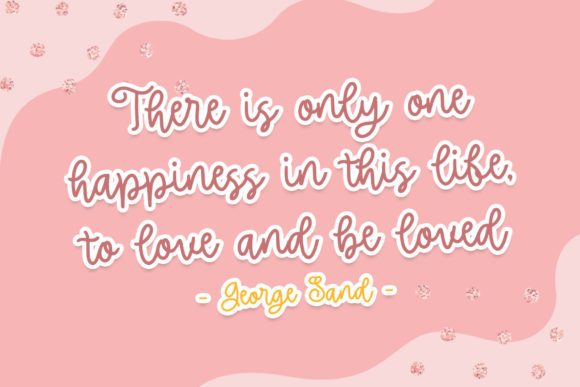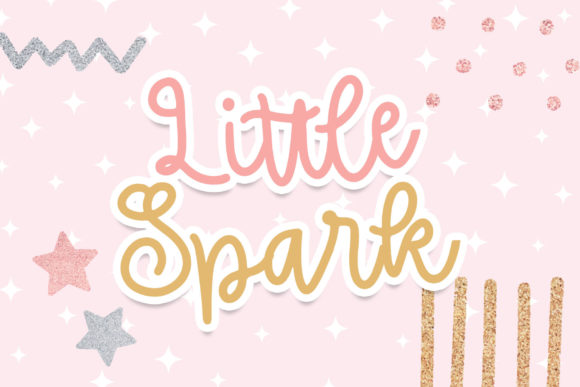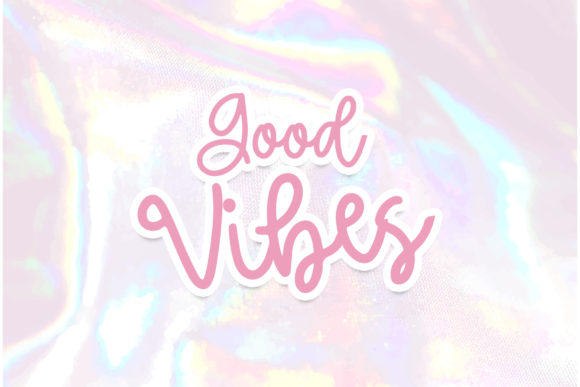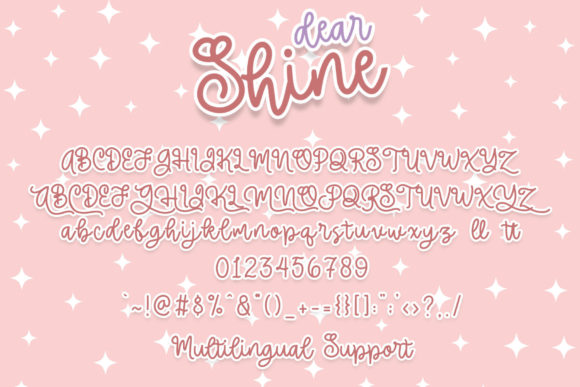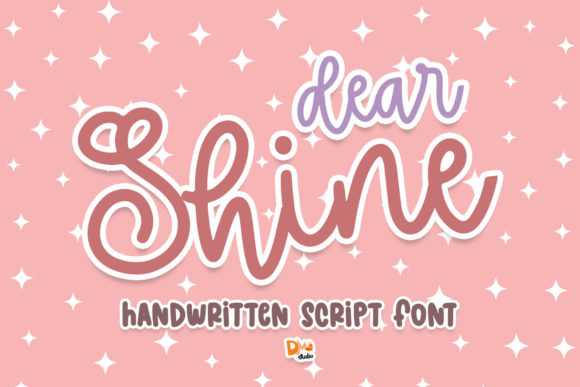
Introducing Dear Shine Font: A Lovely Handwritten Script Font to Spread Happiness
Are you a designer, crafter, or DIY enthusiast looking for a beautiful and elegant font to add a personal touch to your projects? Look no further than Dear Shine Font, a lovely handwritten script font designed to bring joy and creativity to your crafts. In this article, we’ll explore the features and benefits of Dear Shine Font, and how it can help you create stunning and unique designs.
What is Dear Shine Font?
Dear Shine Font is a beautiful handwritten script font that exudes warmth, elegance, and sophistication. Its flowing curves and delicate strokes make it perfect for creating lovely crafts, such as handmade cards, invitations, and DIY projects. With Dear Shine Font, you can add a personal touch to your designs and make them stand out from the crowd.
Features of Dear Shine Font
- Access a wide range of glyphs and swashes to add variety and interest to your designs
- Mix and match different glyphs and swashes to create unique and personalized designs
Benefits of Using Dear Shine Font
So why choose Dear Shine Font for your design projects? Here are just a few benefits of using this lovely handwritten script font:
- Add a personal touch: With Dear Shine Font, you can add a personal touch to your designs and make them more meaningful and special.
- Create unique designs: The font’s PUA encoding and range of glyphs and swashes give you the freedom to create unique and one-of-a-kind designs.
- Elegant and sophisticated: Dear Shine Font is perfect for creating elegant and sophisticated designs that are sure to impress.
- Perfect for crafters: Whether you’re a seasoned crafter or just starting out, Dear Shine Font is a great choice for creating handmade cards, invitations, and DIY projects.
- Pair it with other fonts: Dear Shine Font pairs well with other fonts, so feel free to experiment with different combinations to create unique and interesting designs.
- Experiment with glyphs and swashes: With PUA encoding, you can access a wide range of glyphs and swashes to add variety and interest to your designs.
- Use it for digital and print projects: Dear Shine Font is perfect for both digital and print projects, from social media graphics to handmade cards and invitations.
Dear Shine Font is a lovely handwritten script font that’s perfect for designers, crafters, and DIY enthusiasts. With its PUA encoding and range of glyphs and swashes, you can create unique and personalized designs that are sure to impress. Whether you’re looking to add a personal touch to your crafts or create elegant and sophisticated designs, Dear Shine Font is a great choice. So why not give it a try and see the difference it can make in your designs?